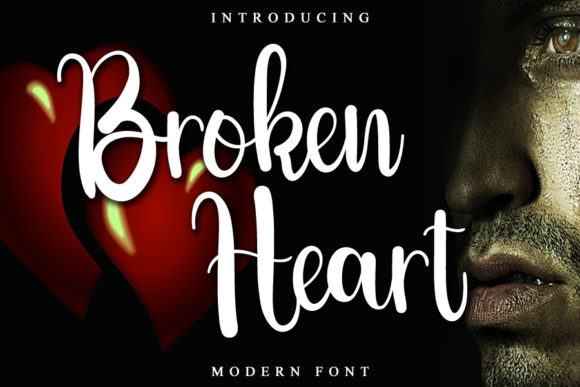
Behold, Broken Heart Font - a stroke of brilliance, meticulously crafted by the visionary designer ABBAsalam, to cater to your creative endeavors and propel your business to unprecedented heights.
Immerse yourself in the world of Broken Heart, a stunning script font that exudes elegance and charm. Its delicate curves and playful strokes dance across the page, adding a touch of whimsy and sophistication to your designs.
Broken Heart is not just a font; it's an experience. A journey into a realm where creativity flourishes, where imagination knows no bounds, and where your designs come alive with vibrant energy.
With Broken Heart as your artistic ally, transform your YouTube banners into captivating works of art that draw viewers in and leave them spellbound. Create cover logo mockups that exude professionalism and leave a lasting impression.
Design wedding invitations that capture the essence of love and romance, forever etching your special day into the hearts of your guests. Create ID cards that stand out with their unique flair, ensuring that your employees and members are easily recognizable.
Craft flyers that demand attention, promoting your events and products with an irresistible charm that compels people to take notice. Unleash your creativity in crafting projects that showcase your unique style and leave a lasting impression.